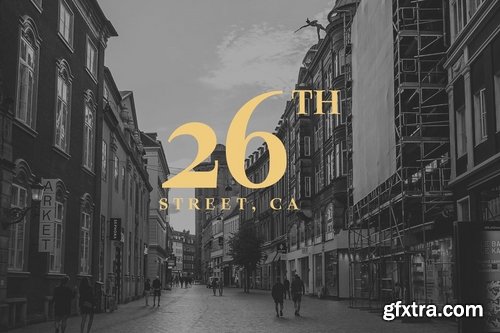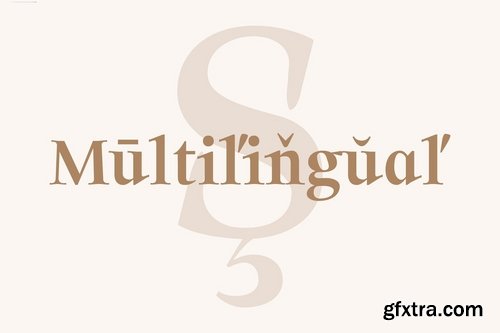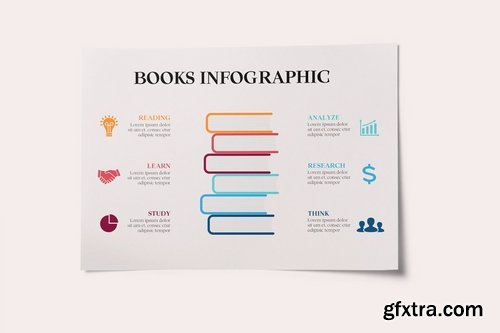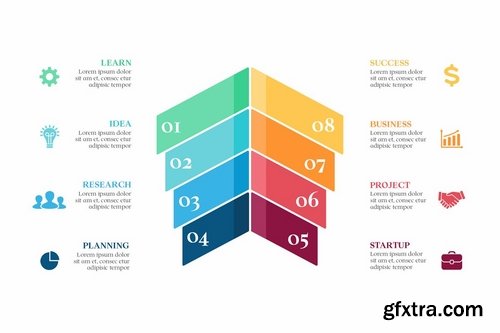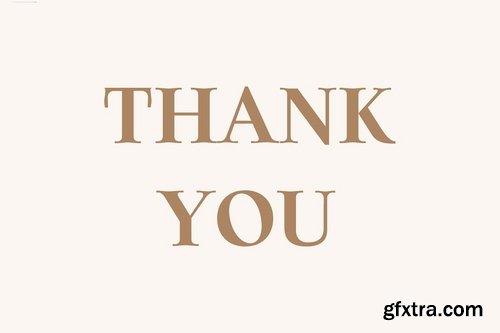
CreativeMarket - Solomon Serif 3918490
- Solomon is a stylish minimalist rounded serif font with classy unique design. It comes in 3 weights with multilingual support. Solomon is great for headlines, logotypes, signage, advertising, magazine, logos, invitations, texts, posters, notices, titles, name card, web layouts, headers, branding, weddings, social media, product design, stationery, and other any business related.